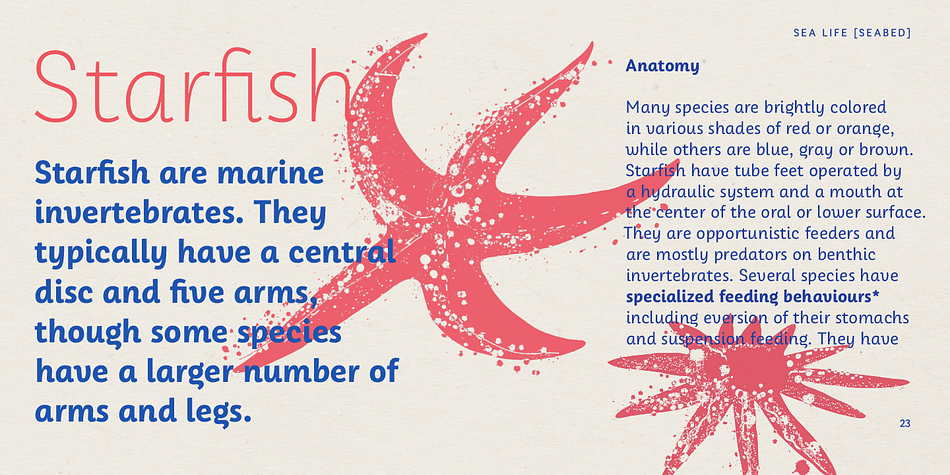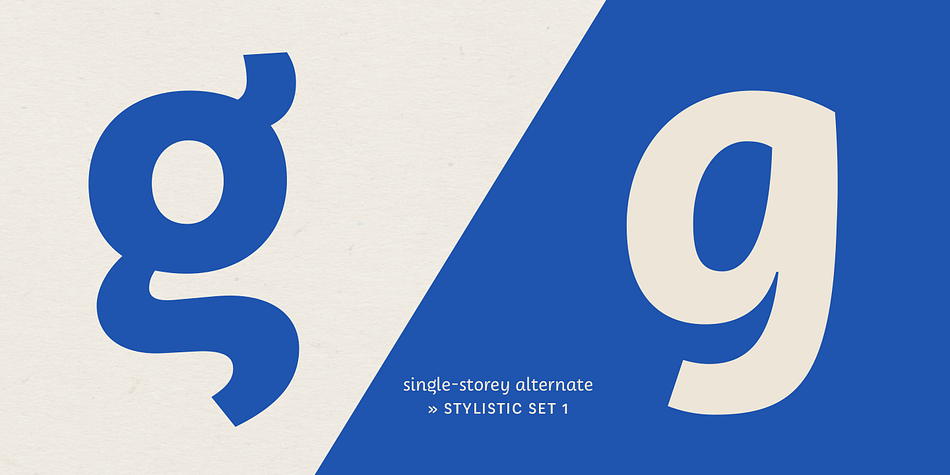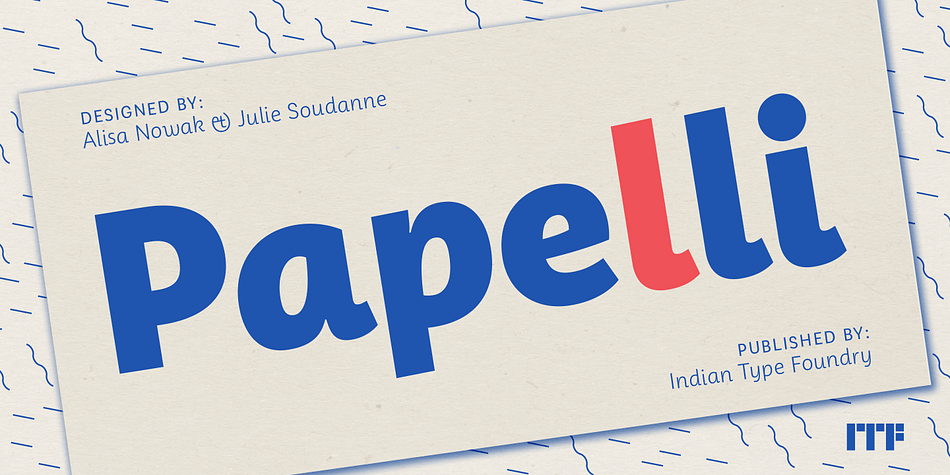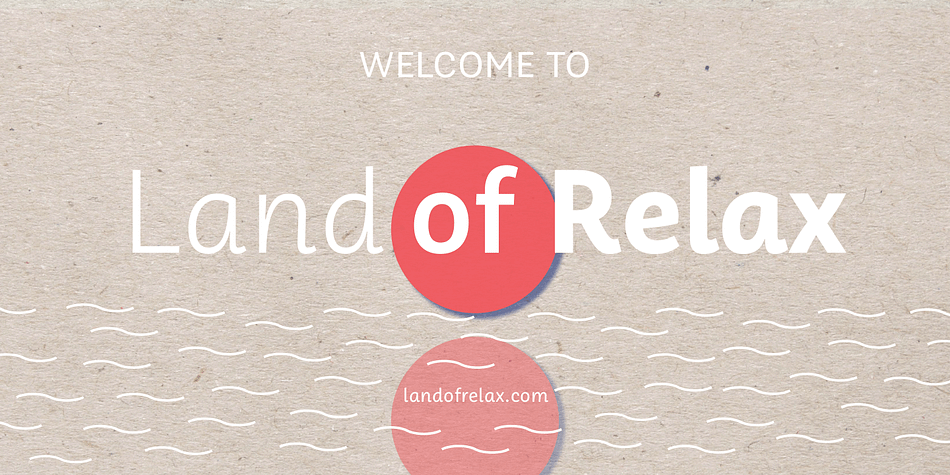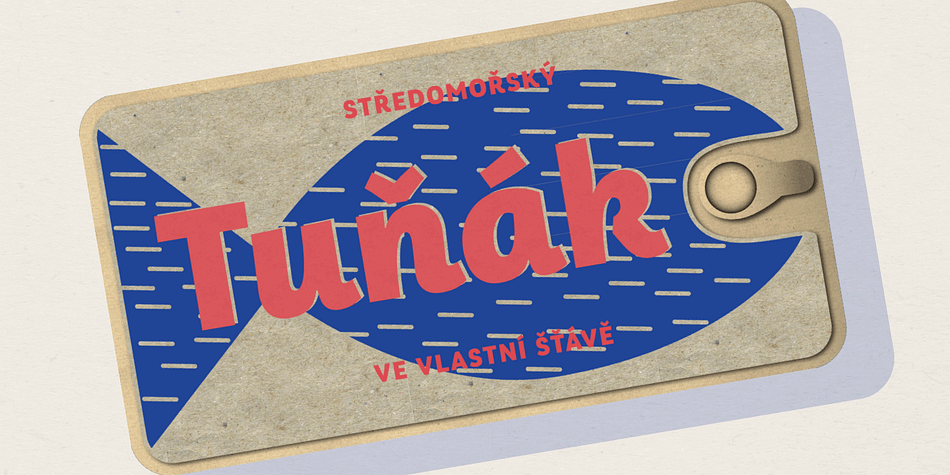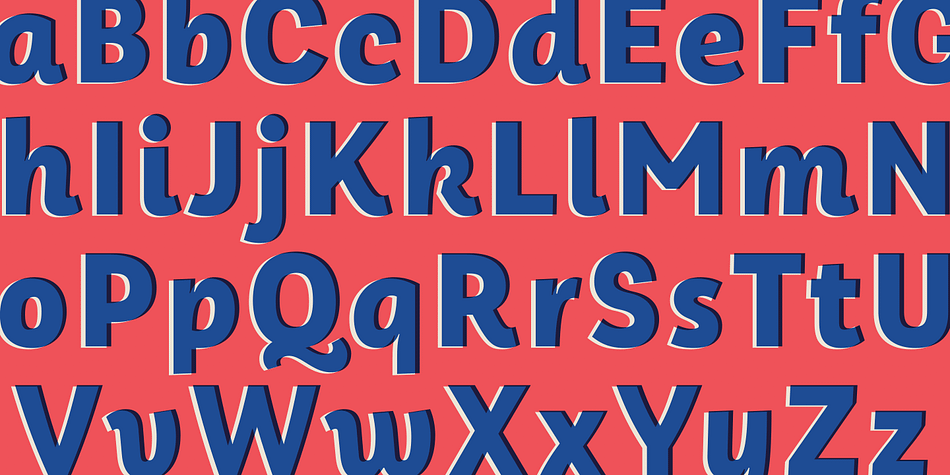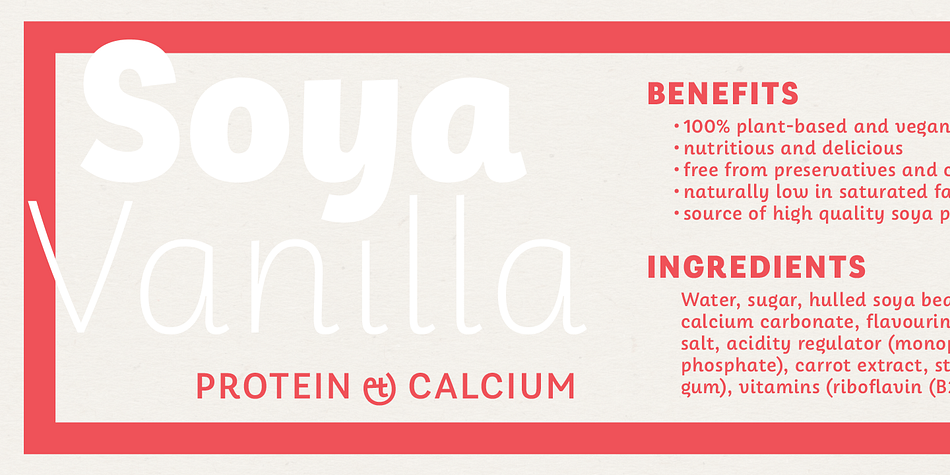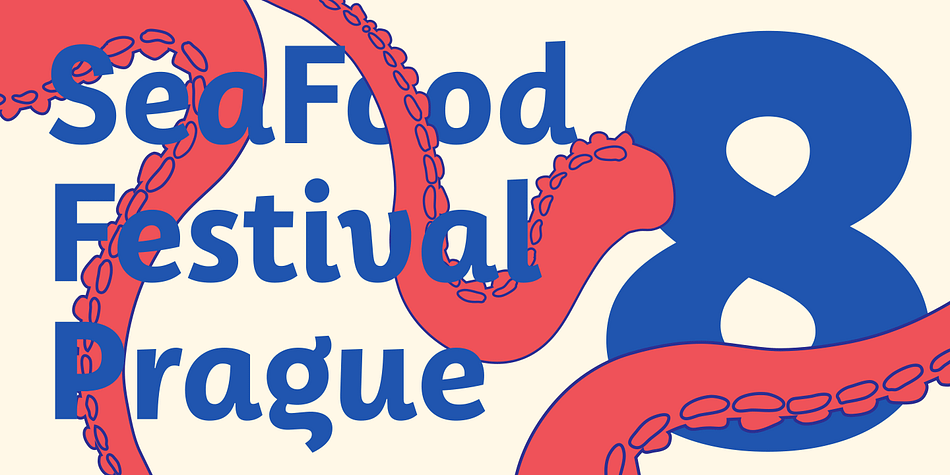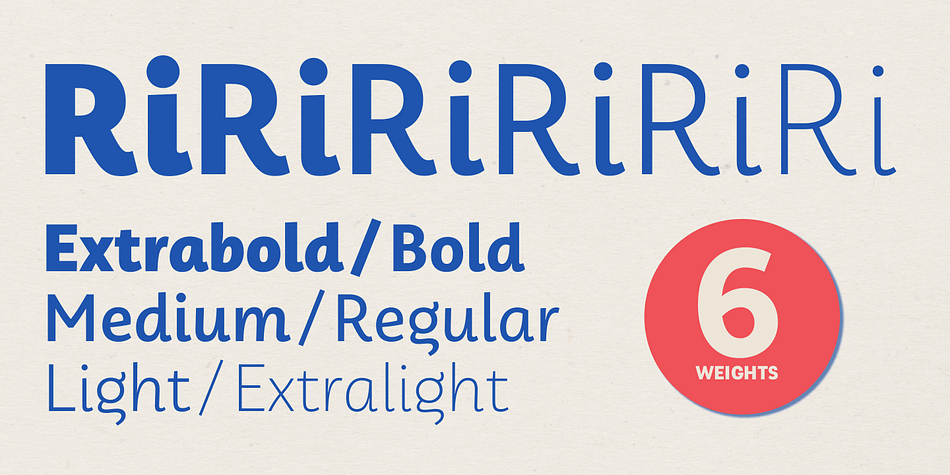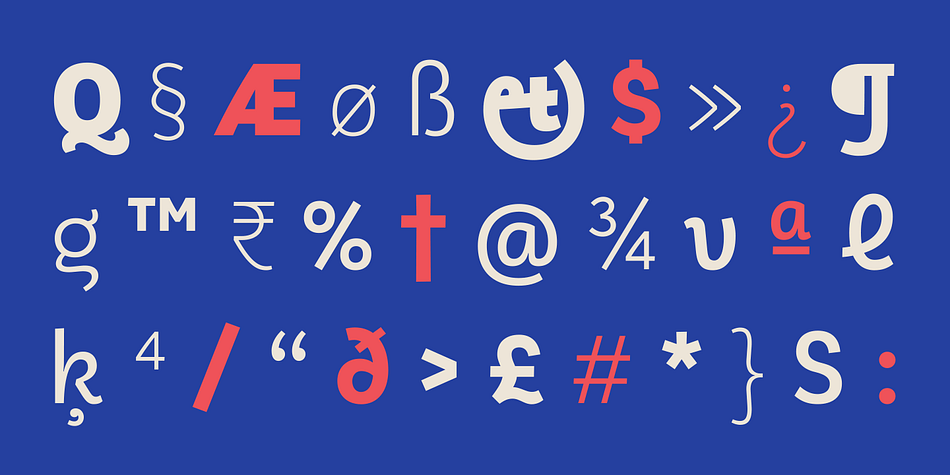
Designed by Alisa Nowak and Julie Soudanne, Papelli is a sans serif font family. This typeface has six styles and was published by Indian Type Foundry.
Papelli is an informal sans with a feminine touch. It is created for use in advertising and corporate or editorial design. The typeface feels like an upright italic; the lowercase letters are especially inspired by cursive writing. Papelli’s ‘a’ is single-storey, and the ‘v’ and ‘w’ have in-strokes on their left-hand sides. The lowercase ‘g’ has a Danish-style truncated-bowl for a descender (a more conventional, single-storey ‘g’ is available in a stylistic set). Many uppercase letters have playful features; for instance, the bottom diagonals on ‘K’ and ‘R’ have cursive out-strokes, and the tail on the ‘Q’ is very energetic. Papelli’s other diagonals are curved, rather than straight – check out the ‘A’, ‘V’, ‘W’, and ‘Y’.
Foundry | Indian Type Foundry |
Designers | Alisa Nowak, Julie Soudanne |